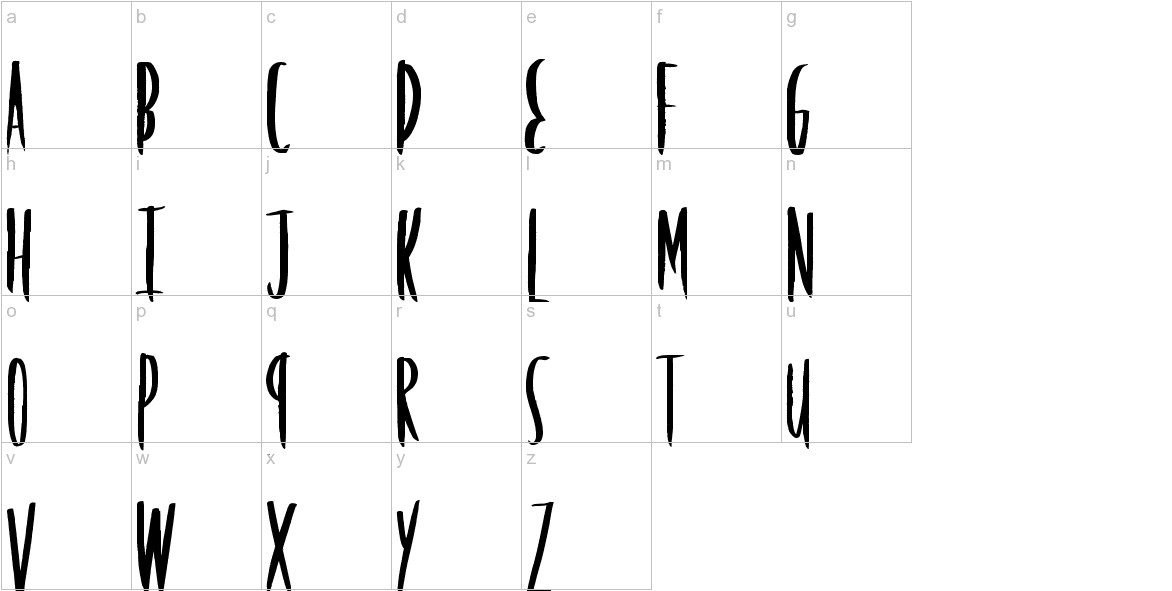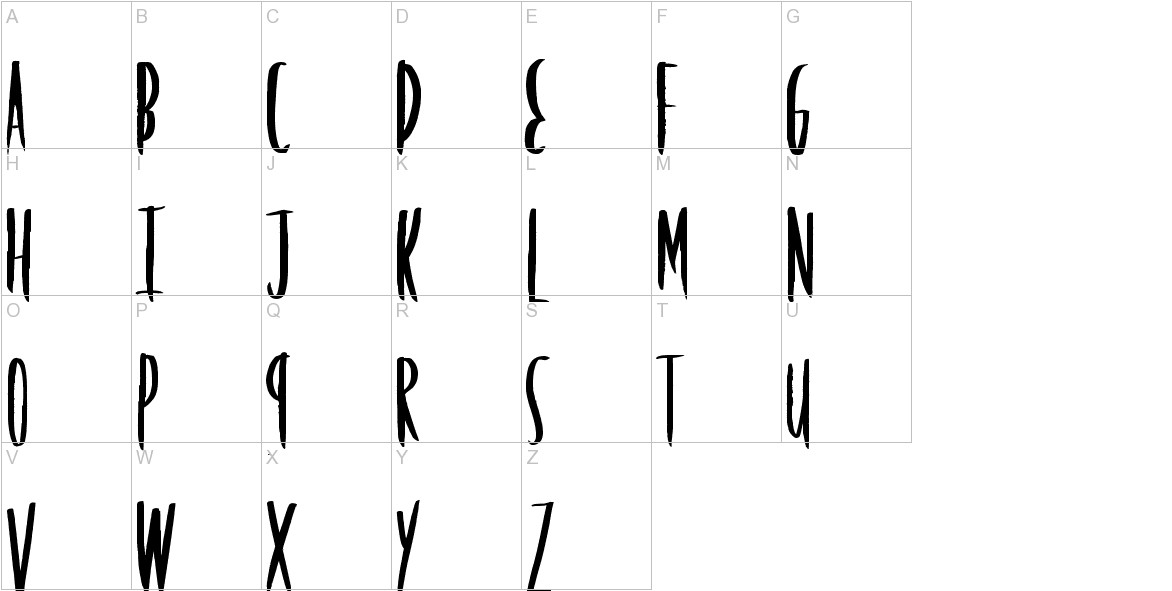
FriendsForever
Special for the friends! FRIENDS FOREVER!
A handwritten line font for poster headers.
hand lettering is awesome.
made with a brush marker.